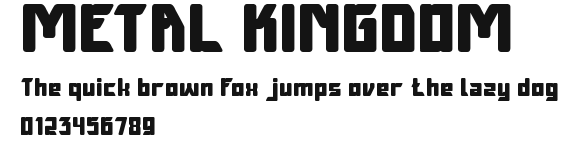
METAL KINGDOM Preview
• Font Name: METAL KINGDOM
• Full Font Name: METAL KINGDOM
• Version: Version 1.00 December 4, 2014, initial release
About METAL KINGDOM.ttf
METAL KINGDOM.ttf is a modern, elegant sans-serif font designed for ultimate readability and visual harmony. Perfect for branding, headlines, web design, and print materials.